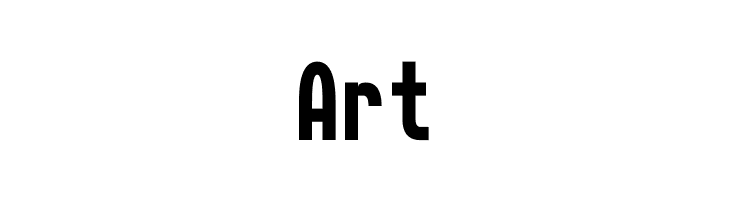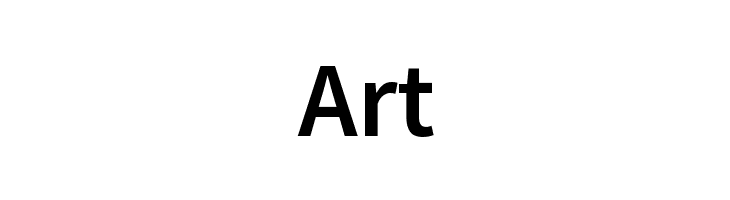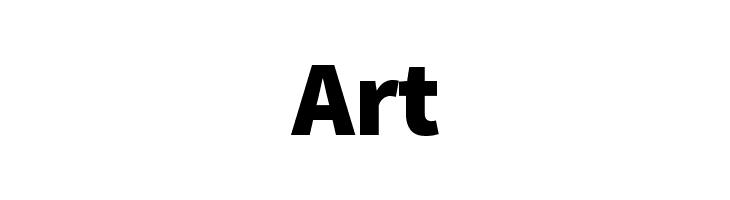
A modern, geometric font with clean lines and a minimalist aesthetic.
A bold, modern font with a condensed, geometric style.
A bold, geometric font with a modern yet retro feel.
A modern, geometric font with clean lines and a structured, minimalist design.
A modern, semi-bold sans-serif font with clean lines and balanced proportions.
A modern sans-serif font with balanced proportions and clear legibility.
A modern, clean sans-serif font with uniform stroke width and excellent readability.
A bold, modern typeface with clean lines and geometric shapes.
A clean, modern sans-serif font with excellent readability and balanced design.
A bold, sans-serif font with a strong and modern appearance.
A modern, light sans-serif font with clean lines and balanced spacing.
An elegant and flowing script font with cursive, connected letterforms.
A bold serif font with high contrast and sharp serifs, blending classic and modern styles.
A modern, narrow font with artistic curves and angles.
A bold, expressive font with a graffiti-like, hand-painted style.
A maritime-themed decorative dingbat font with pirate ships and nautical icons.
A playful font designed with pencil-themed characters.
A bold, futuristic font with geometric shapes and dynamic curves.
A rustic, hand-drawn font with bold, playful characters and uneven strokes.
An elegant script font with graceful, flowing strokes and delicate curves.
An elegant and artistic font with cursive-like uppercase and clean lowercase letters.
An ornate and elegant Arabic script with intricate design elements.
A bold, distressed font with a textured, vintage appearance.
A decorative font composed of detailed bird illustrations for each character.
A playful, handwritten font with dynamic and fluid strokes.
A futuristic, semi-italic font with bold, angular characters and a geometric style.